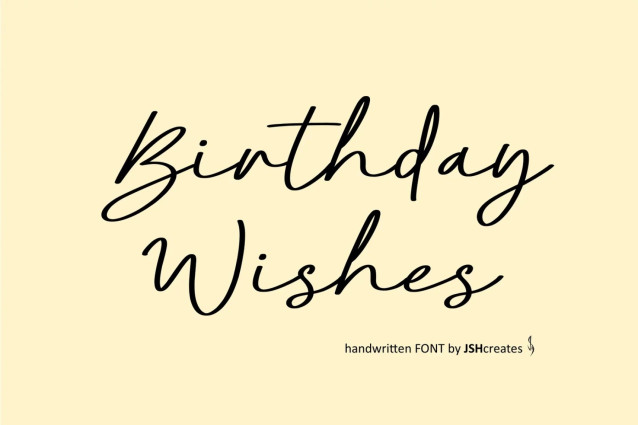
Birthday Wishes is a casual handwritten script font with an organic, flowing structure. Its loose letterforms and natural connections give it a personal, hand-penned quality that feels warm and approachable.
Best suited to greeting cards, invitations, social media graphics, personal stationery, and craft packaging. It works well for projects that require a friendly, human touch rather than a formal, structured look.